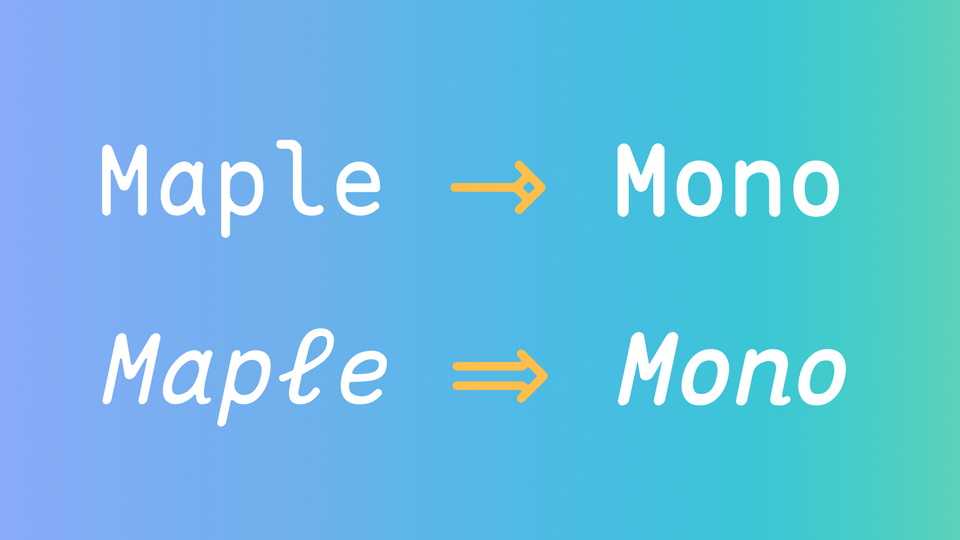
Download Maple Mono font, a monospaced/nerd typeface with rounded corners designed for IDE and command line. Maple Mono font is inspired by Source Code Pro, Fira Code Retina, ubuntu mono, operator mono, Sarasa mono sc nerd and so on.